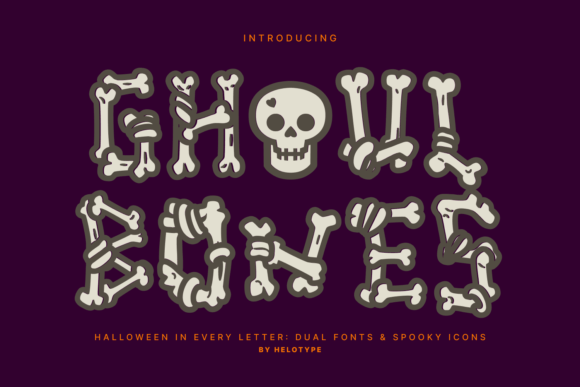
Unleash the Horror: Ghoul Bones Font – The Ultimate Halloween Design Companion
As the spookiest time of the year approaches, designers and creatives are on the lookout for the perfect elements to make their Halloween designs stand out. If you’re searching for a font and icon set that will add a chilling touch to your creations, look no further than Ghoul Bones. This dual font and icon set is designed to offer endless possibilities for creating spooky and eye-catching graphics that will leave a lasting impression.
What is Ghoul Bones Font?
Ghoul Bones is a unique and versatile font and icon set that is specifically designed to capture the essence of Halloween. The font features a bold, bone-chilling design that is perfect for creating haunting posters, wicked invitations, and other spooky graphics. The accompanying icon set includes a range of creepy and kooky elements, from bones and skulls to ghosts and otherworldly creatures.
The Features of Ghoul Bones Font
So, what makes Ghoul Bones font so special? Here are just a few of the key features that set it apart:
- Dual Font and Icon Set: Ghoul Bones offers both a font and icon set, giving you everything you need to create spooky and eye-catching graphics.
- Bold and Bone-Chilling Design: The font features a bold, attention-grabbing design that is perfect for creating haunting posters and other spooky graphics.
- Endless Possibilities: With Ghoul Bones, you can create a wide range of graphics, from haunted house signs to creepy invitations and more.
How to Use Ghoul Bones Font
- Create Haunting Posters: Use the font and icon set to create eye-catching posters for haunted houses, Halloween parties, and other spooky events.
- Design Creepy Invitations: Create wicked invitations for Halloween parties, trick-or-treat events, and other spooky gatherings.
- Make Spooky Social Media Graphics: Use the font and icon set to create spooky social media graphics, including Facebook posts, Twitter headers, and Instagram stories.
Tips and Tricks for Getting the Most Out of Ghoul Bones Font
Here are a few tips and tricks to help you get the most out of Ghoul Bones font:
- Experiment with Different Colors: Don’t be afraid to experiment with different colors to create a unique and eye-catching look.
- Mix and Match Fonts: Try mixing and matching Ghoul Bones font with other fonts to create a unique and interesting look.
- Use the Icon Set to Add Visual Interest: Use the icon set to add visual interest to your graphics and make them stand out.